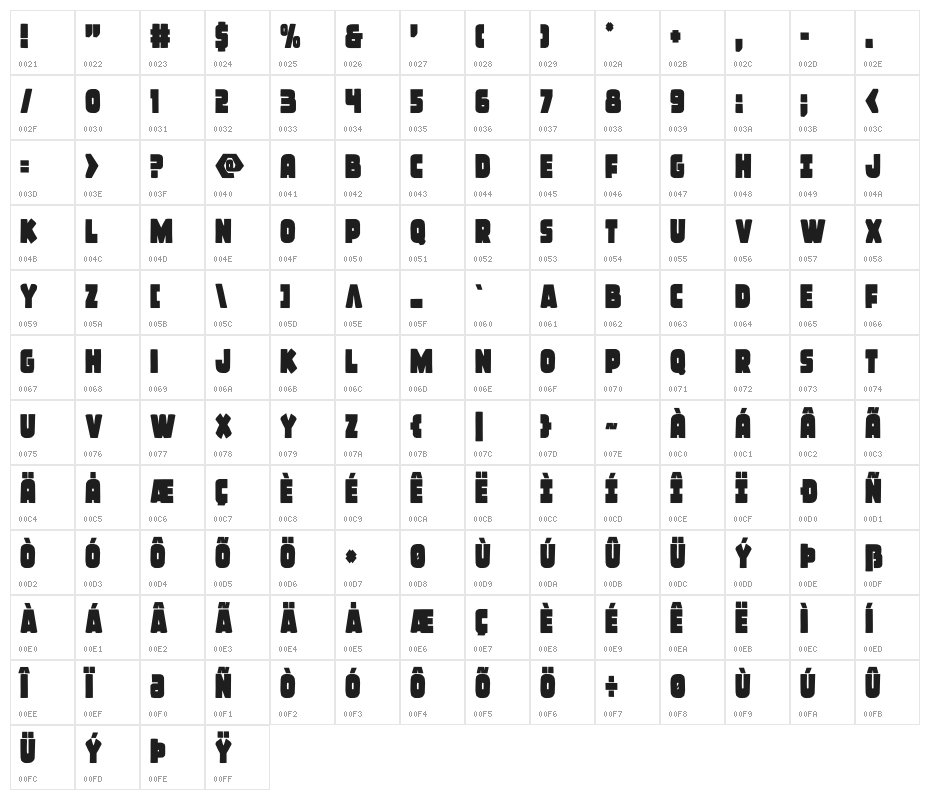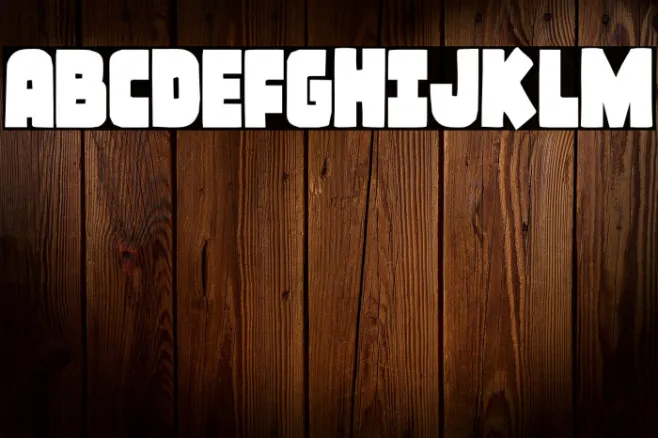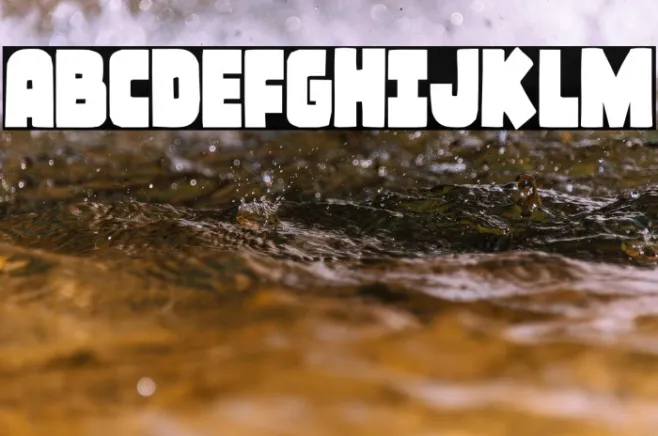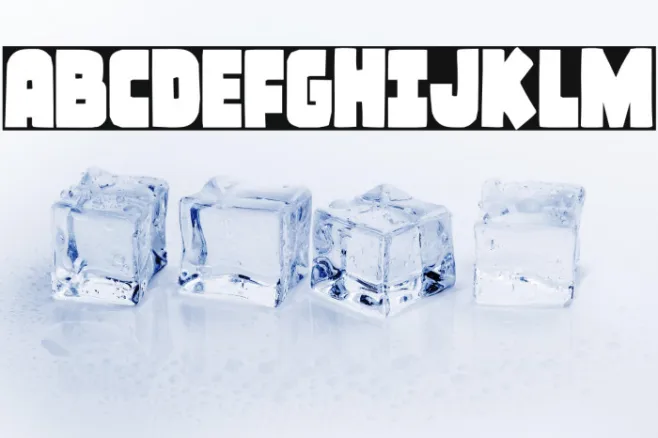
Frost Giant Condensed Font
Frost Giant Condensed Description
This font features a bold and impactful design with thick, blocky characters that convey strength and presence. The condensed style ensures that the letters are tightly packed, making it ideal for space-saving applications while maintaining readability. The uniform stroke width across all characters gives it a cohesive and solid appearance. The uppercase and lowercase letters, along with numerals and special characters, are designed with a consistent weight and width, emphasizing a modern and robust aesthetic. The font's boldness and condensed form make it suitable for attention-grabbing headlines and titles.
| Proposed Projects | Ideal for posters, banners, headlines, and branding materials where a strong visual impact is needed. |